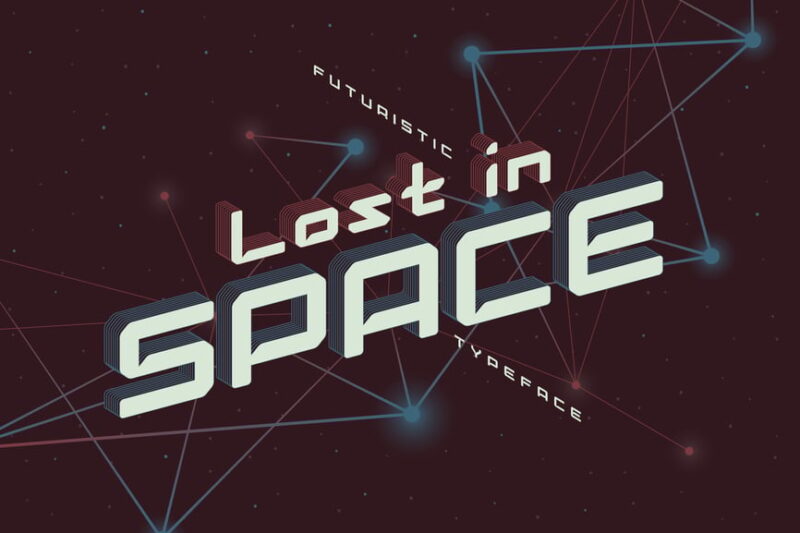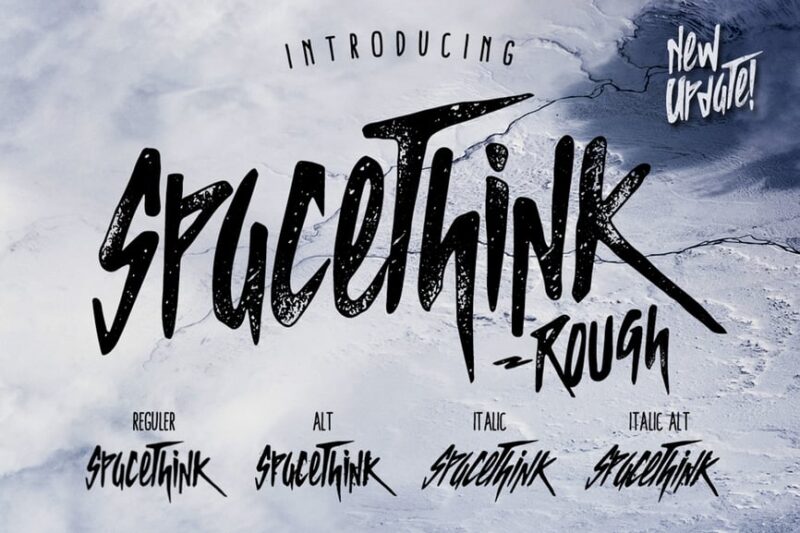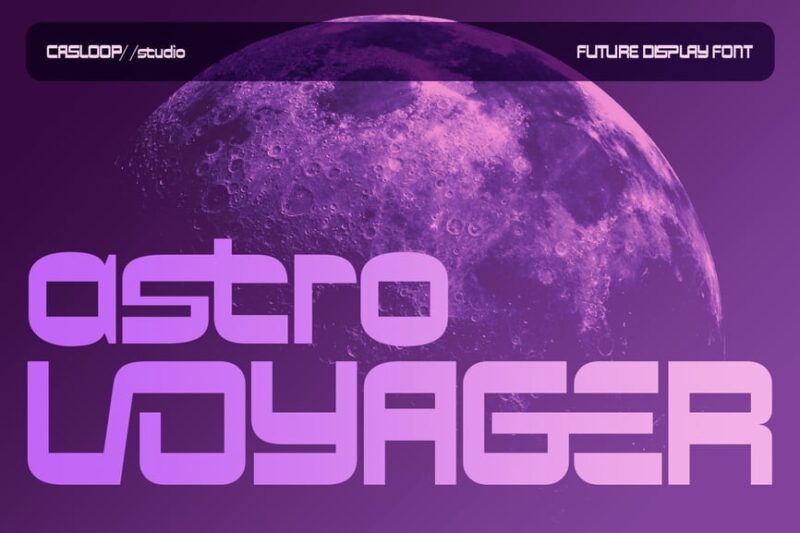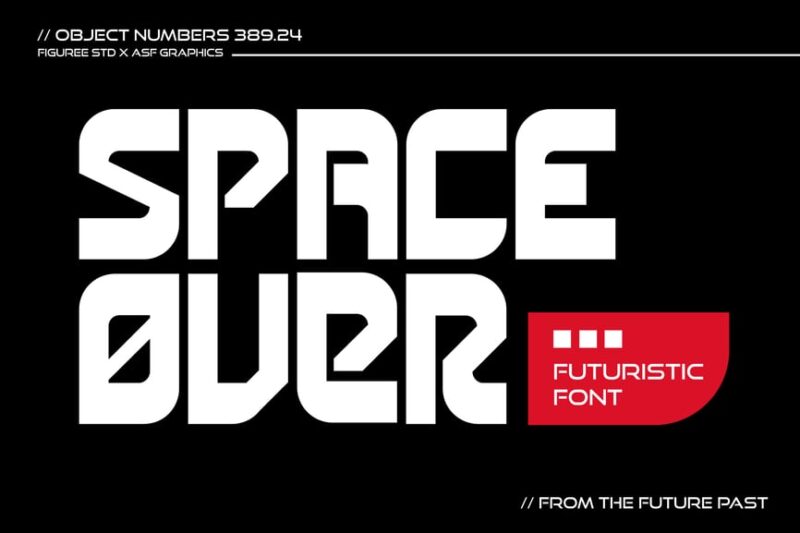
The cosmos has always captured our imagination, from the twinkling stars above to the mysterious depths of distant galaxies. And now, more than ever, space-themed design is having its moment. Whether you’re creating a sci-fi movie poster, designing a futuristic brand identity, or crafting materials for the next space tourism venture, the right space font can transport your audience straight into the final frontier.
Space fonts aren’t just about slapping some stars on letterforms and calling it cosmic. The best space fonts capture that perfect blend of futuristic sophistication and otherworldly wonder that makes viewers feel like they’re glimpsing humanity’s next chapter among the stars.
In this stellar exploration, we’ll journey through the galaxy of space fonts that are dominating design in 2026. From sleek, technological typefaces that scream “NASA mission control” to playful alien-inspired letters that feel like they came straight from a Saturday morning cartoon, these fonts will help your designs reach for the stars.
The Most “Stellar” Space Fonts of 2026
When it comes to space fonts that truly deliver that cosmic punch, I’ve curated a collection that spans the entire universe of possibilities. Here are the space fonts that are absolutely crushing it right now:
The Space Font
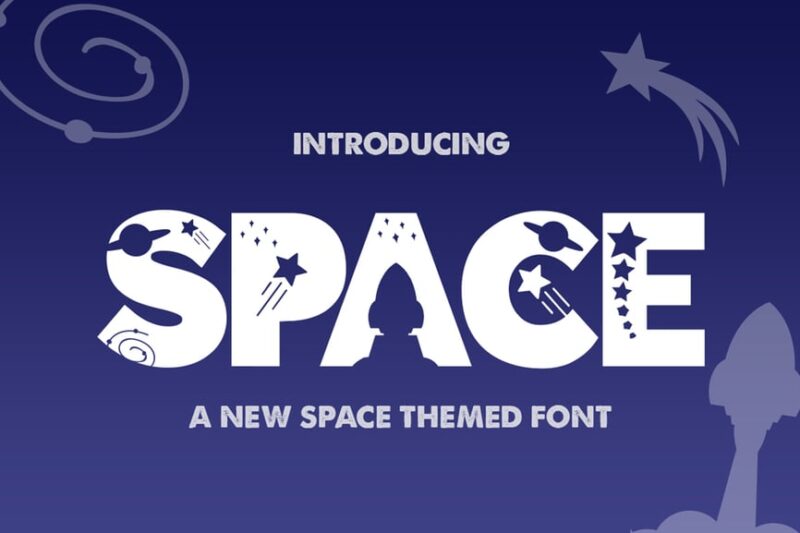
This space font is a versatile sans-serif typeface perfect for cosmic-themed designs. Its clean lines and modern aesthetics make it ideal for projects that require a futuristic or extraterrestrial touch, embodying the essence of space exploration in its letterforms.
TERBAANG
TERBAANG is a bold, wide space font that commands attention. This sans-serif typeface is perfect for headlines and logos in space-themed designs, offering a strong presence that evokes the vastness of the cosmos.
Techno Space Futuristic Font
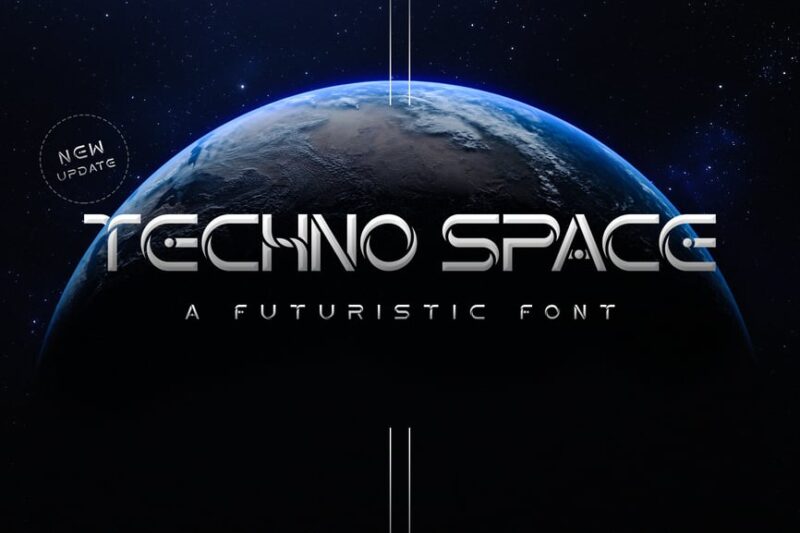
This futuristic space font blends techno aesthetics with a cosmic flair. Its decorative sans-serif design makes it ideal for sci-fi projects, space-themed branding, and any design that aims to capture the cutting-edge feel of space technology.
Spacer
Spacer is a technology-inspired font that bridges the gap between earthbound tech and space exploration. This sans-serif typeface is perfect for projects that require a sleek, modern look with a hint of interstellar adventure.
Andromeda
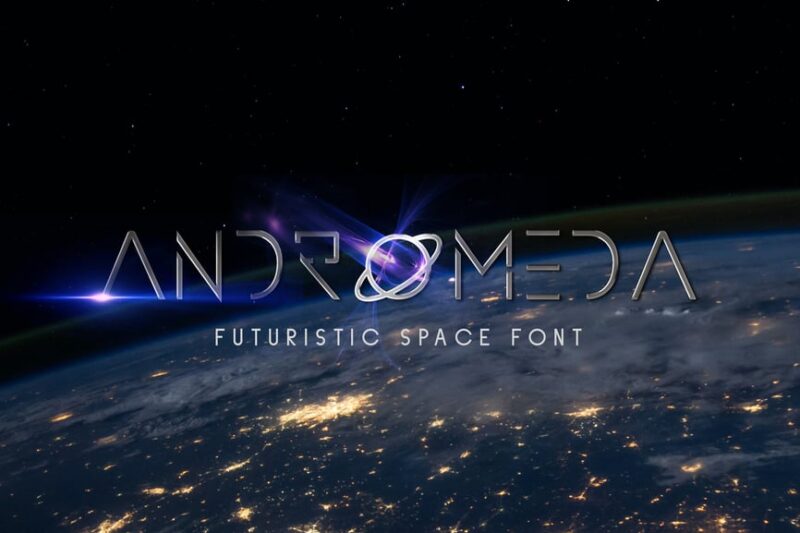
Andromeda is a futuristic space font that captures the mystery of distant galaxies. This decorative sans-serif typeface is ideal for alien-themed designs, space exploration branding, and any project that needs to convey a sense of cosmic wonder.
Space Quest
Space Quest is a playful space font designed with kids in mind. This decorative sans-serif typeface, featuring crayon-like textures and space symbols, is perfect for children’s books, educational materials, and fun space-themed projects aimed at young explorers.
NIght Space
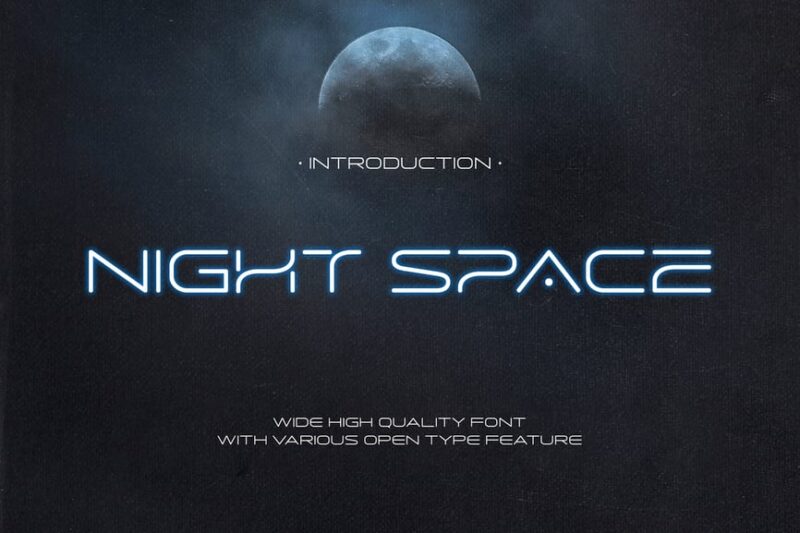
NIght Space is a sleek sans-serif font that captures the essence of the starry night sky. This sci-fi typeface is ideal for sci-fi projects, astronomy-related designs, and any work that aims to evoke the mystery and beauty of the cosmos after dark.
Anomaly Space
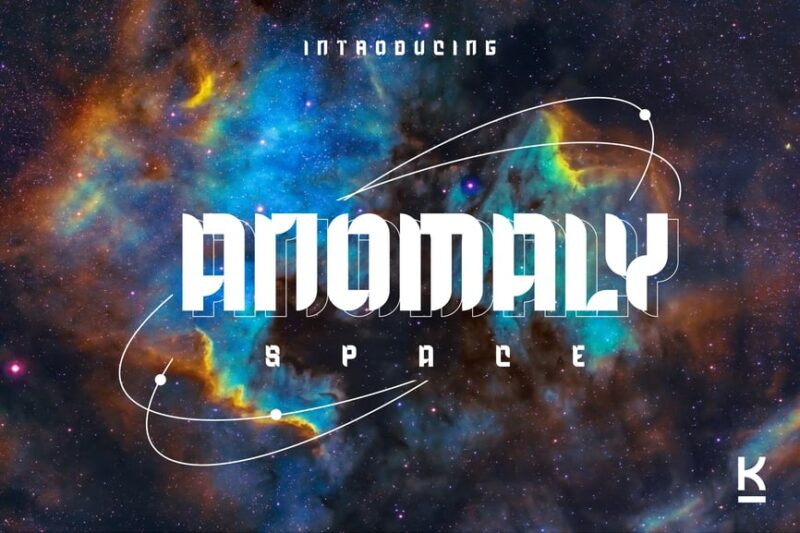
Anomaly Space is an intriguing sans-serif font that brings an alien touch to typography. This space-themed typeface is perfect for designs that aim to capture the unknown and unexpected aspects of cosmic exploration, making it ideal for sci-fi and extraterrestrial concepts.
Grand Space
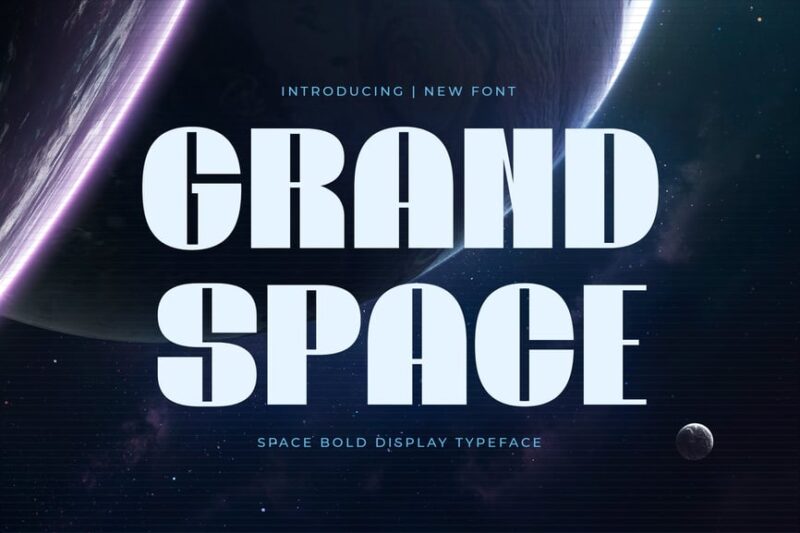
Grand Space is a bold, decorative typeface that embodies the grandeur of the cosmos. This space font’s strong presence makes it perfect for headlines, posters, and designs that need to convey the awe-inspiring vastness of galaxies and celestial bodies.
Krophed
Krophed is a versatile font family that includes serif, sans-serif, and symbol variations, all with a space and tech-inspired twist. This comprehensive typeface is ideal for complex projects that require a cohesive cosmic or futuristic theme across different typographic elements.
Space fonts represent more than just trendy typography – they’re visual bridges between our current reality and the infinite possibilities that await us among the stars. Whether you’re designing for the next Mars mission or simply want to add some cosmic energy to your creative projects, the right space font can make your designs feel truly universal.
The cosmos is vast, and so are your design possibilities. Choose your space font wisely, and prepare for designs that are truly out of this world!